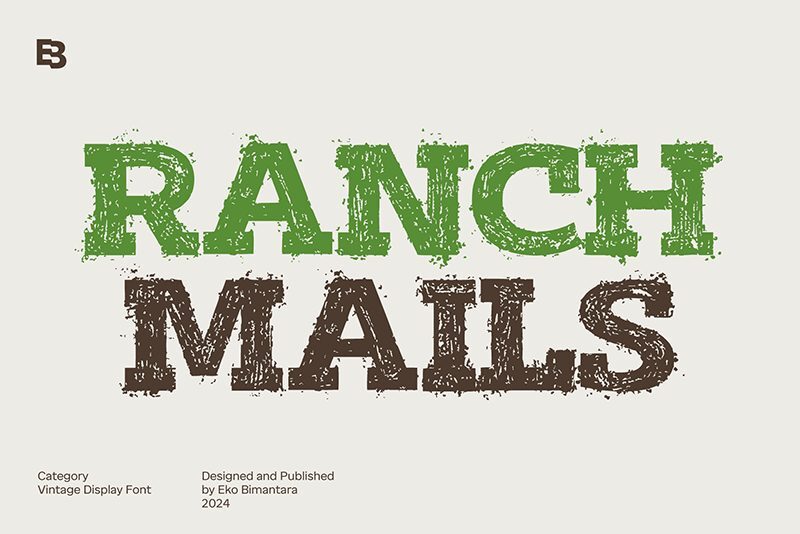
Ranch Mails Font
Ranch Mails is a distinctive eroded display font created by Eko Bimantara. Featuring a weathered, distressed aesthetic, it delivers a rugged yet stylish punch ideal for vintage branding, rustic posters, and edgy modern designs.
Its textured, worn look adds character and visual depth to headlines, logos, and creative projects. Free for personal and commercial use, this striking typeface captures attention with its unique, rough-hewn charm.